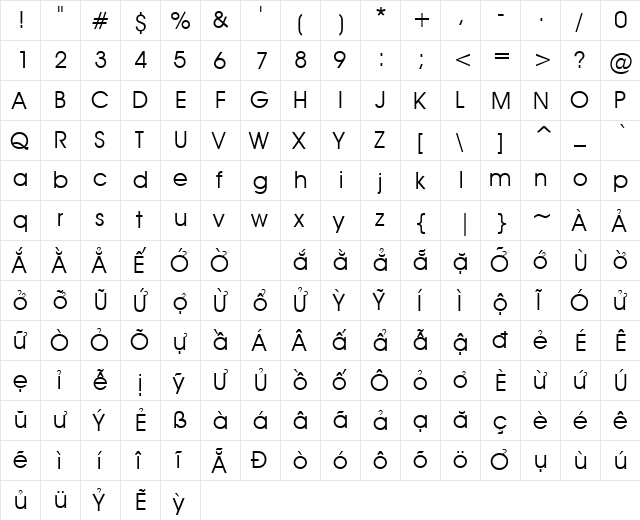
VPS Tuyen Duc Book
Design Context for VPS Tuyen Duc Typeface
VPS Tuyen Duc offers clean, dependable letterforms without strong stylistic allegiance, making it a practical choice for designers who need flexibility.